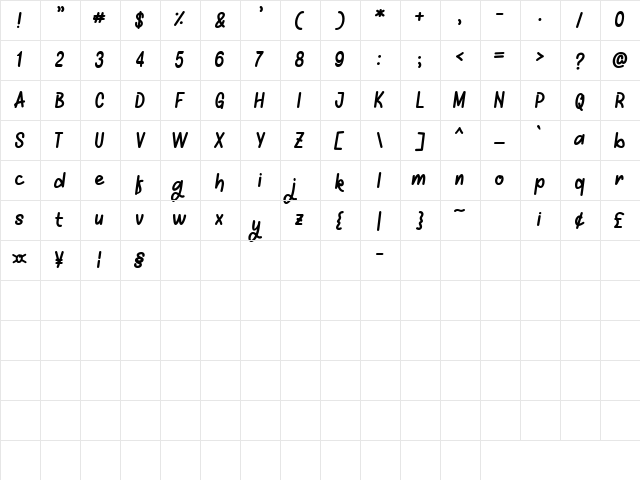
Mellows Regular
Design Context for Mellows Typeface
Mellows is a composed and adaptable typeface that performs quietly and consistently across a wide range of design contexts.
Pro Tip: Pair Mellows with a font of contrasting weight or personality to build a more expressive typographic hierarchy.